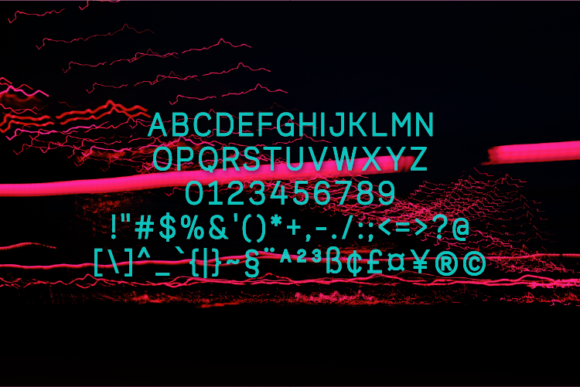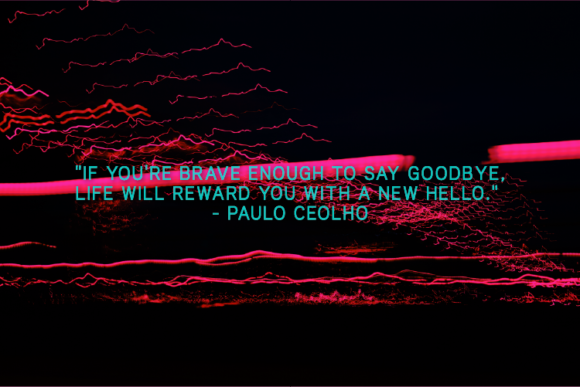
Discover the Fresh and Versatile Alterm Font: Elevate Your Designs with a Modern Sans Serif Style
In the world of typography, a font can make or break a design. As a designer or crafter, you’re constantly on the lookout for the perfect typeface to bring your projects to life. If you’re seeking a modern sans serif font that’s both fresh and versatile, look no further than Alterm. Designed to complement a wide range of projects, Alterm boasts a thin, neat vibe that’s sure to elevate your designs and leave a lasting impression.
The Alterm Advantage: What Sets This Font Apart
So, what makes Alterm an exceptional choice for designers and crafters? Here are just a few key advantages of this remarkable font:
- Clean and Modern Design: Alterm’s sleek, sans serif design ensures that your text remains clear and legible, even at smaller font sizes. This makes it perfect for body text, headings, and everything in between.
- Fresh and Thin Vibe: Alterm’s unique blend of elegance and simplicity gives it a fresh, airy feel that’s perfect for designs that require a touch of sophistication.
- Versatility: Whether you’re working on a website, brochure, or business card, Alterm’s adaptability ensures that it will complement your project perfectly.
Why Designers and Crafters Love Alterm
Alterm has quickly become a go-to font for designers and crafters around the world. Here are just a few reasons why:
- Ease of Use: Alterm is incredibly easy to read and works beautifully in a variety of contexts, from digital screens to print materials.
- Customization Options: With a range of weights and styles to choose from, you can tailor Alterm to suit your design needs.
- Time-Saving: With Alterm, you can achieve professional-looking results quickly and easily, saving you time and effort.
How to Use Alterm in Your Designs
Ready to experience the benefits of Alterm for yourself? Here are some tips for incorporating this amazing font into your designs:
- Pair with Other Fonts: Alterm pairs beautifully with a range of other fonts, allowing you to create stunning contrast and visual interest.
- Experiment with Weights and Styles: Don’t be afraid to try out different weights and styles to find the perfect combination for your design.
- Use Across Multiple Platforms: Alterm’s versatility makes it perfect for use across multiple platforms, from websites and social media to print materials and more.
In conclusion, Alterm is an exceptional sans serif font that’s sure to elevate your designs and take your projects to the next level. With its fresh, thin, and neat vibe, Alterm offers a unique blend of style, versatility, and ease of use that’s hard to find in other fonts. Whether you’re a seasoned designer or a crafter just starting out, Alterm is an excellent choice for anyone looking to add a touch of modern sophistication to their work.